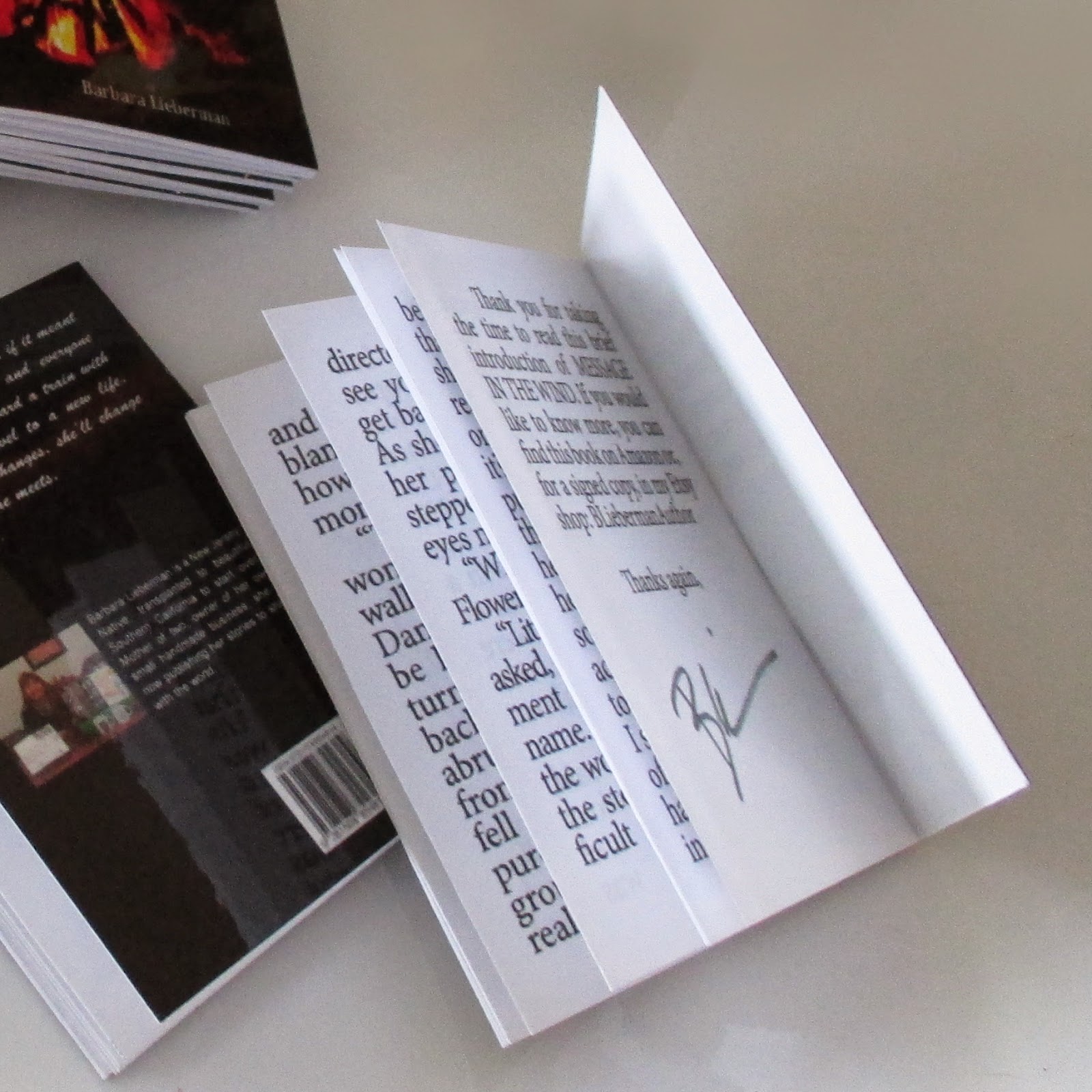
Best Font Styles To Use For Mini Booklets . Web at papertrue, we help you choose the best fonts and select the best font for books (depending on the genre and requirement). Select booklet fonts that are clear and legible, making sure your audience can easily read and understand the content.
Web at papertrue, we help you choose the best fonts and select the best font for books (depending on the genre and requirement). Web the font combinations we use for books are a real contradiction. This graceful font was developed in france in the 16th century and has a classical feel.
Web at papertrue, we help you choose the best fonts and select the best font for books (depending on the genre and requirement). They can be so quiet you just don’t notice them. Web discover the x perfect fonts to make your book look like a bestseller. Web at papertrue, we help you choose the best fonts and select the best font for books (depending on the genre and requirement).
Best Font Styles To Use For Mini Booklets - Select booklet fonts that are clear and legible, making sure your audience can easily read and understand the content. Web the best fonts for books include: This graceful font was developed in france in the 16th century and has a classical feel. These fonts are suitable for books of any genre: They can be so quiet you just don’t notice.
Best Font Styles To Use For Mini Booklets - Select booklet fonts that are clear and legible, making sure your audience can easily read and understand the content. This graceful font was developed in france in the 16th century and has a classical feel. Web the font combinations we use for books are a real contradiction. These fonts are suitable for books of any genre: They can be so.
Best Font Styles To Use For Mini Booklets - They can be so quiet you just don’t notice them. Select booklet fonts that are clear and legible, making sure your audience can easily read and understand the content. Web the font combinations we use for books are a real contradiction. Web at papertrue, we help you choose the best fonts and select the best font for books (depending on.
Best Font Styles To Use For Mini Booklets - Web the best fonts for books include: They can be so quiet you just don’t notice them. This graceful font was developed in france in the 16th century and has a classical feel. These fonts are suitable for books of any genre: Web discover the x perfect fonts to make your book look like a bestseller.
Best Font Styles To Use For Mini Booklets - Web the font combinations we use for books are a real contradiction. Web at papertrue, we help you choose the best fonts and select the best font for books (depending on the genre and requirement). Select booklet fonts that are clear and legible, making sure your audience can easily read and understand the content. They can be so quiet you.
Best Font Styles To Use For Mini Booklets - These fonts are suitable for books of any genre: Select booklet fonts that are clear and legible, making sure your audience can easily read and understand the content. This graceful font was developed in france in the 16th century and has a classical feel. Web the font combinations we use for books are a real contradiction. Web the best fonts.
Best Font Styles To Use For Mini Booklets - Web at papertrue, we help you choose the best fonts and select the best font for books (depending on the genre and requirement). Web the best fonts for books include: Select booklet fonts that are clear and legible, making sure your audience can easily read and understand the content. This graceful font was developed in france in the 16th century.
Best Font Styles To Use For Mini Booklets - Web the best fonts for books include: Web discover the x perfect fonts to make your book look like a bestseller. These fonts are suitable for books of any genre: Web at papertrue, we help you choose the best fonts and select the best font for books (depending on the genre and requirement). This graceful font was developed in france.
Best Font Styles To Use For Mini Booklets - Web the best fonts for books include: Web discover the x perfect fonts to make your book look like a bestseller. They can be so quiet you just don’t notice them. Select booklet fonts that are clear and legible, making sure your audience can easily read and understand the content. Web the font combinations we use for books are a.
Best Font Styles To Use For Mini Booklets - They can be so quiet you just don’t notice them. Select booklet fonts that are clear and legible, making sure your audience can easily read and understand the content. These fonts are suitable for books of any genre: Web the font combinations we use for books are a real contradiction. Web at papertrue, we help you choose the best fonts.
Best Font Styles To Use For Mini Booklets - Web the font combinations we use for books are a real contradiction. This graceful font was developed in france in the 16th century and has a classical feel. Web at papertrue, we help you choose the best fonts and select the best font for books (depending on the genre and requirement). They can be so quiet you just don’t notice.